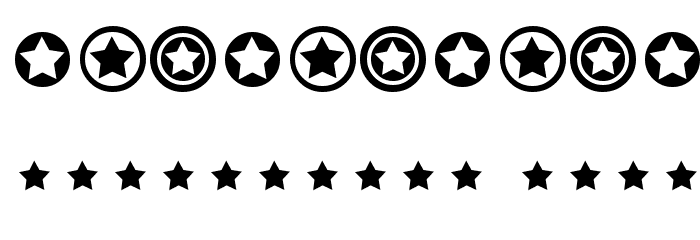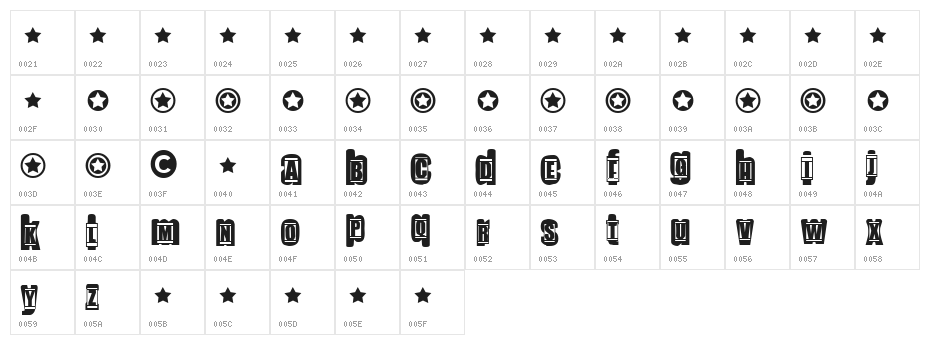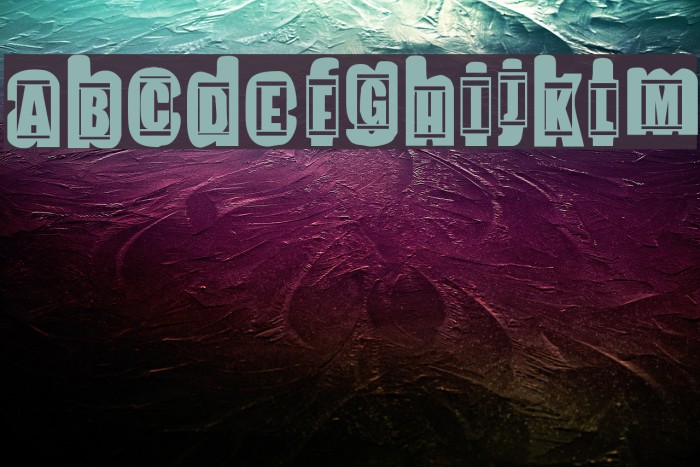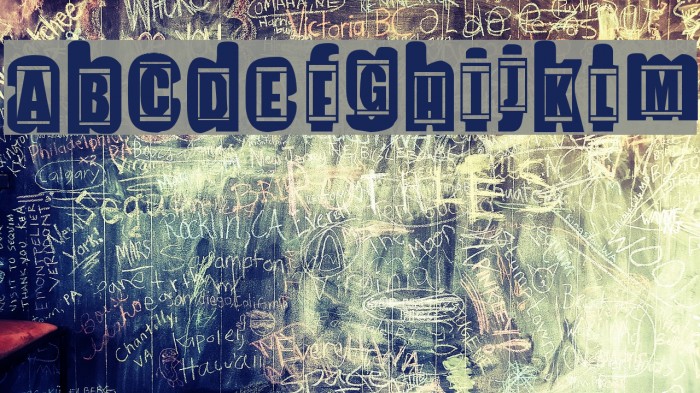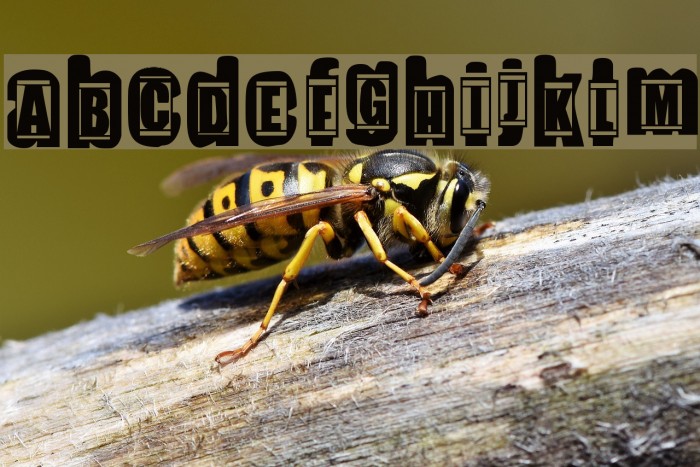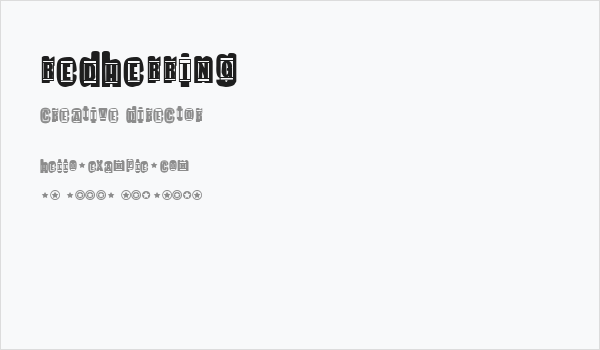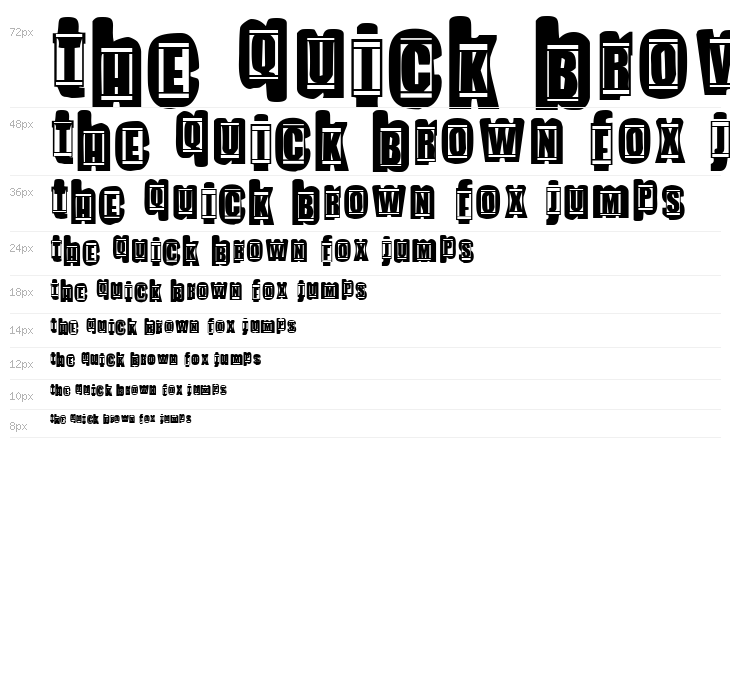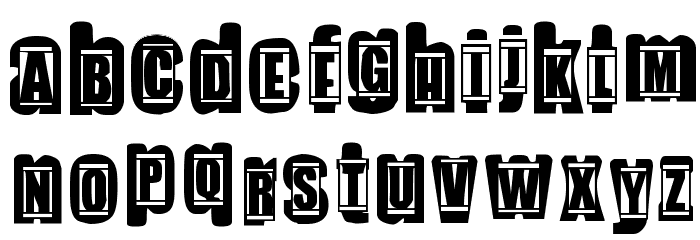
Redherring Font
Redherring Description
This font features a bold, three-dimensional effect with a shadow that gives it a striking and impactful appearance. The characters are uppercase and lowercase with a consistent thickness, creating a strong visual presence. The design includes a star motif, adding a decorative element that enhances its playful and dynamic style. The font's boldness and unique style make it suitable for attention-grabbing headlines or logos. Its decorative nature suggests a use in creative projects where a strong, distinctive look is desired.
| Proposed Projects | Ideal for posters, logos, event invitations, or any project requiring a bold, decorative typeface. |